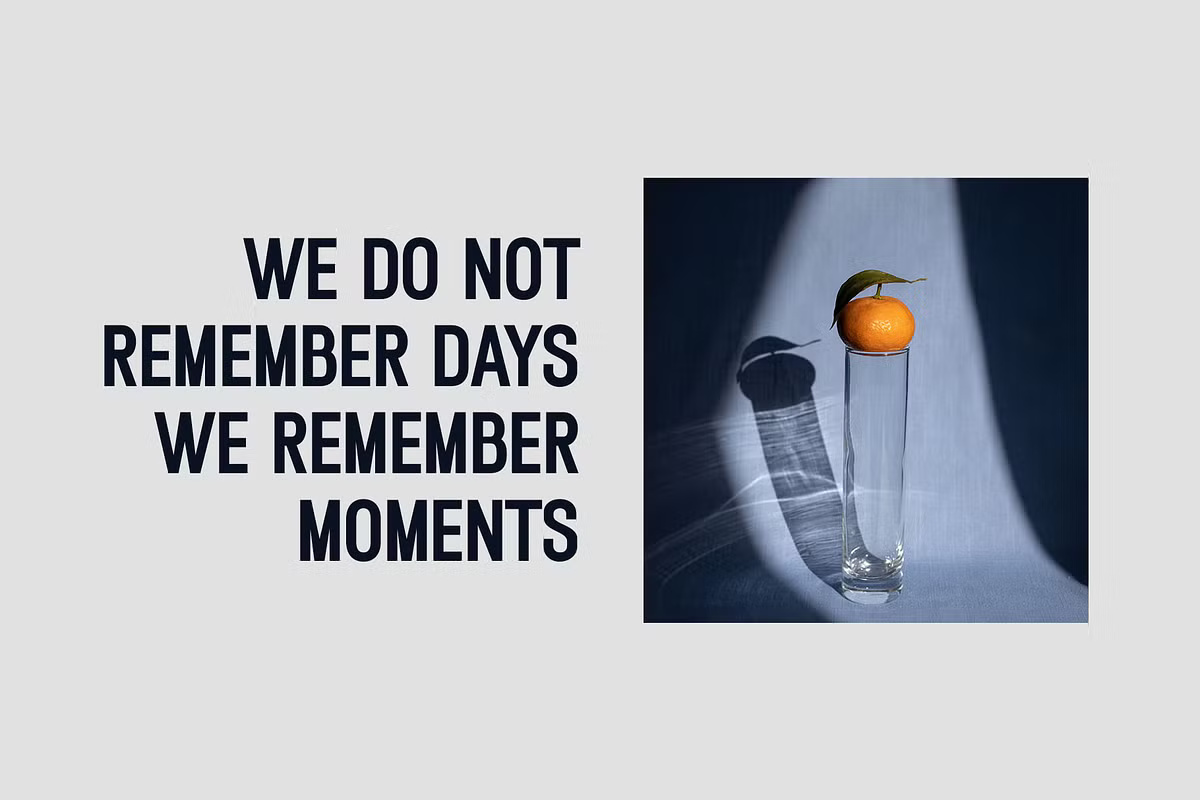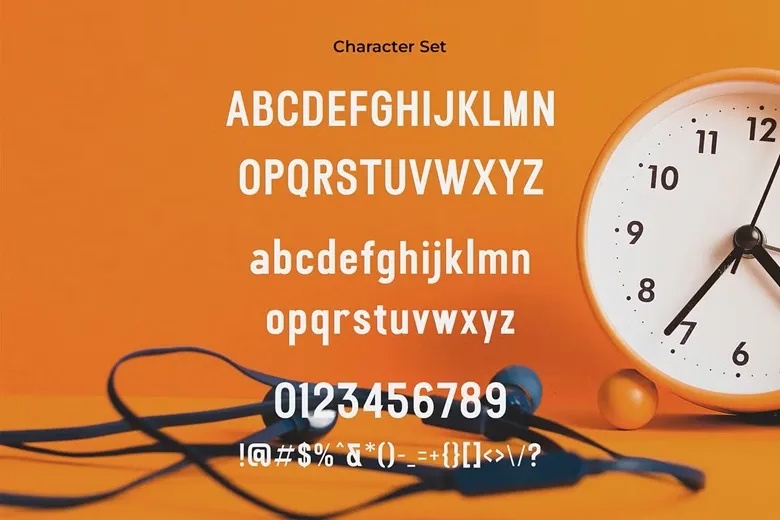
Nellima is a sturdy, slightly condensed sans serif. The strokes are thick and even, the letters are a little taller than they are wide, and there is a faint retro flavour in shapes like the round-shouldered a and the short-armed t. The cover sets the name in white over a deep blue background with a streak of orange.
Best uses for Nellima
- Quote posters and social media graphics
- Headlines and section titles
- Logos and wordmarks
- Product packaging
- Event flyers
Nellima is bold and narrow, so a lighter, wider partner gives balance. Inter works for body text. Montserrat in Regular suits small captions. For a serif contrast, Lora adds warmth.